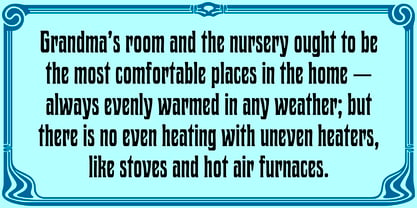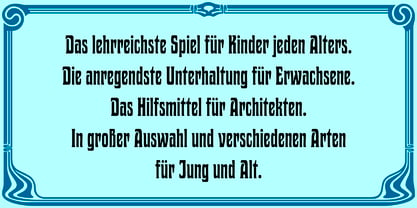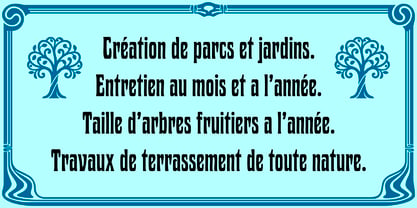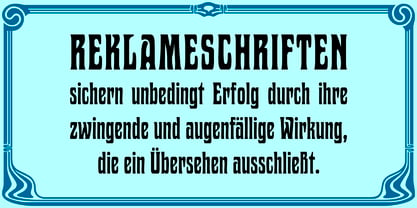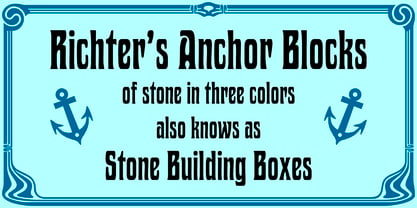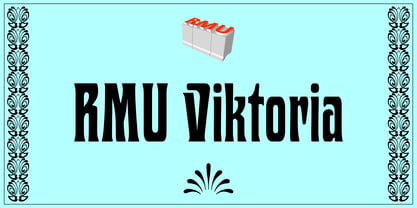
RMU Viktoria
Freshly drawn and redesigned, RMU Viktoria is a revival of an Art Nouveau font which was released by various German foundries under different names at the beginning of the 20th century. Then it reached a hight popularity. Use this font for works related to the Art Nouveau style as in posters, signboards, books etc. It is clear and legible and makes a good appearance.